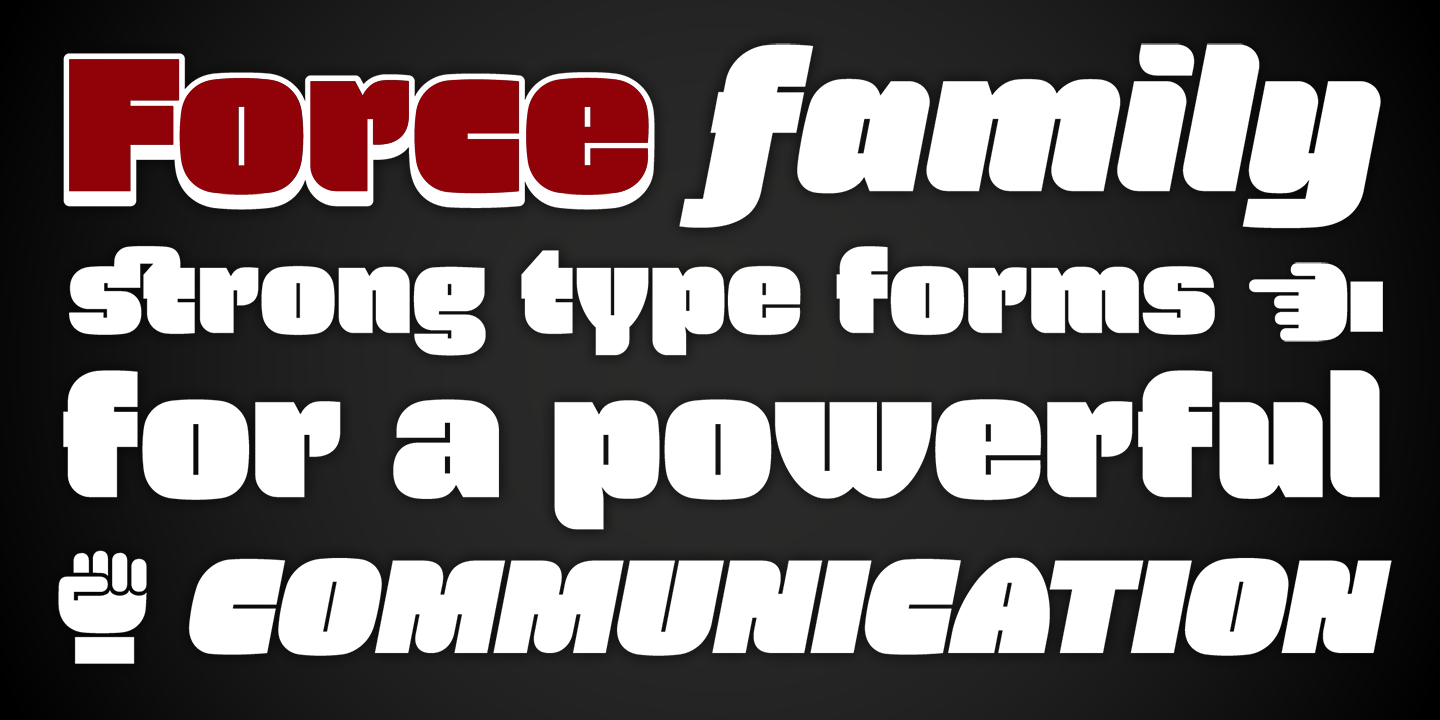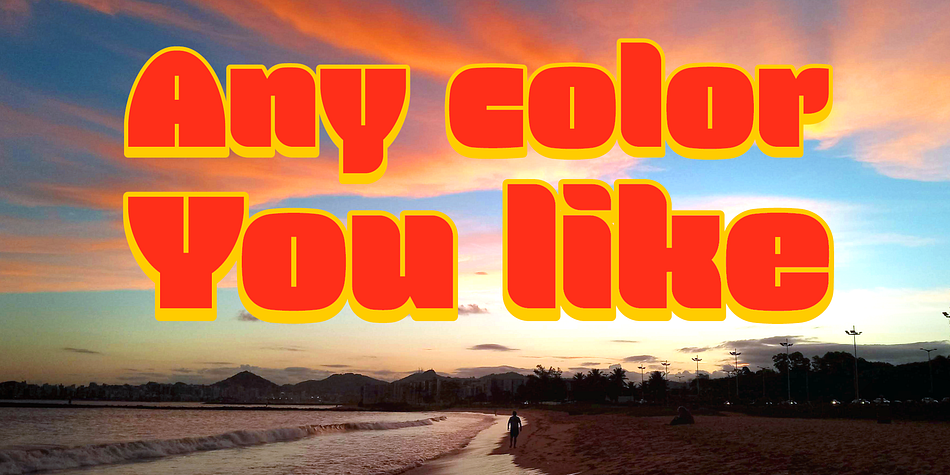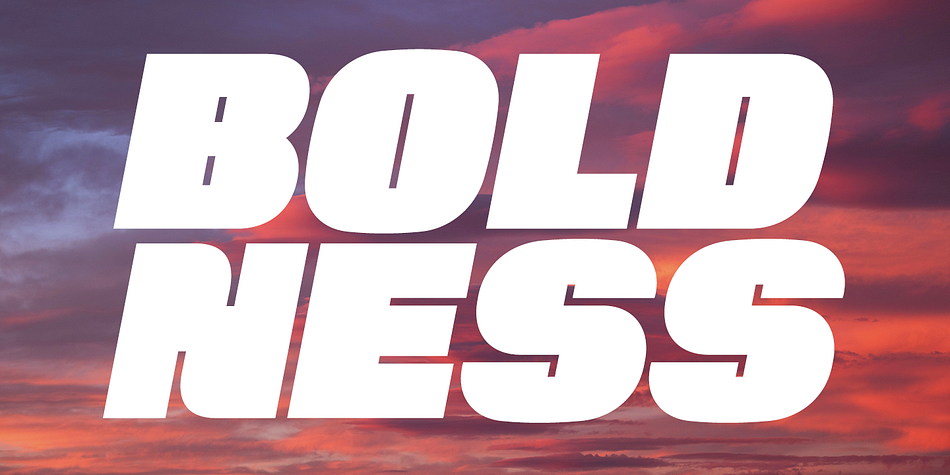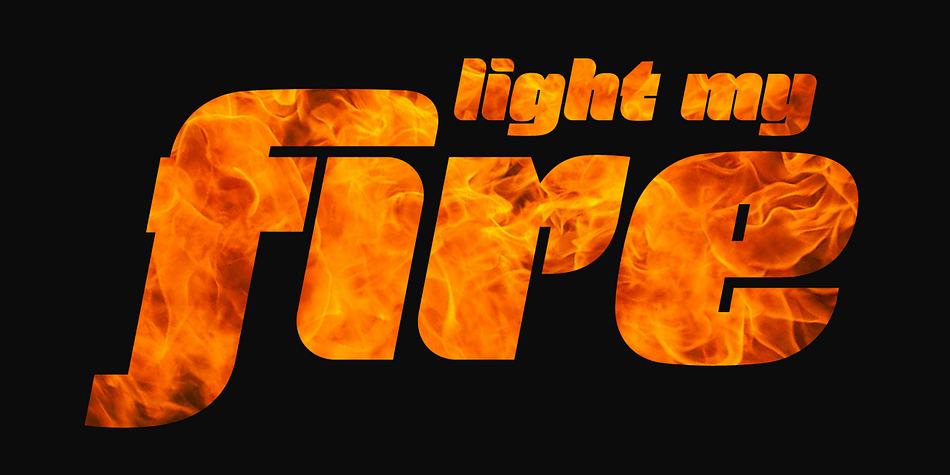
Force
Designed by Ricardo Esteves Gomes, Force is a display and dingbat font family. This typeface has four styles and was published by Outras Fontes.
Force is a contemporary sans serif ultra-black family comprised of 4 font styles: Force Regular; Force Italic; Force Shadow, that can be used alone or as a second layer to Force Regular; and Force Dingbats, cointaining some pictograms. Each font file has some OpenType features: discretionary ligatures, fractions, subscript and superscript. The Force family is suitable for big-size high impact situations like posters, headlines, titles, magazines, packaging and many others you may creatively think of.
Foundry Outras Fontes
Designer Ricardo Esteves Gomes